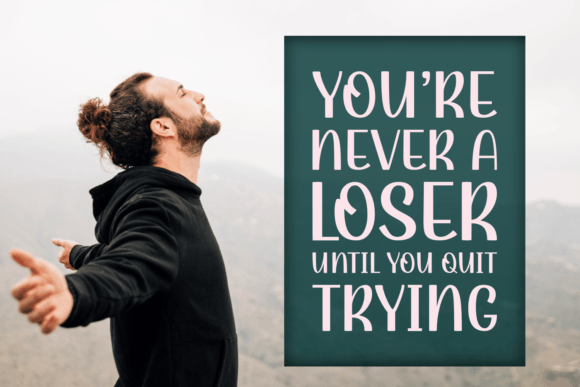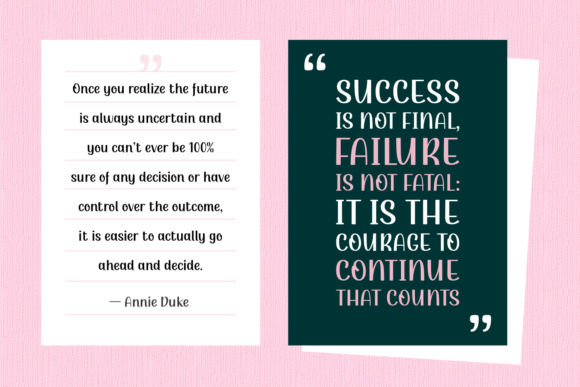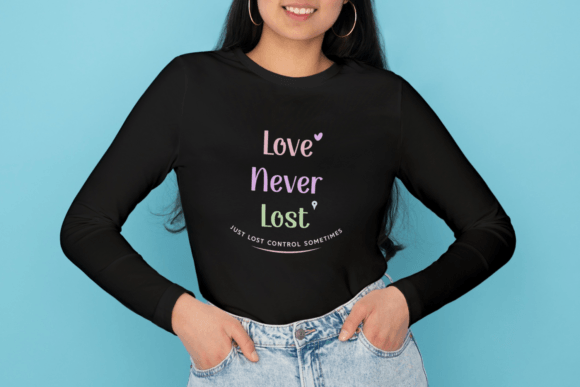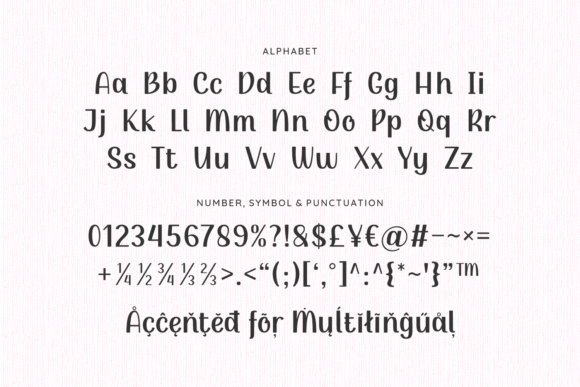
Introduction to Just Be Honest Font
Just Be Honest is a joyful, friendly-looking handwritten font.
Clean and beautiful, this high-readability font is perfect for a wide range of projects – web design, apparel, digital notebooks, magazines, storybooks, and more .
Key Features of Just Be Honest Font
Why Choose Just Be Honest Font?
Just Be Honest Font offers exceptional quality and versatility, making it a valuable addition to your design toolkit. Whether you’re creating for personal projects or commercial use, Just Be Honest Font delivers professional results.